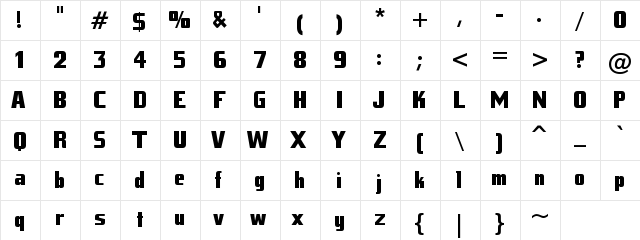
Tank Junior Regular
Design Context for Tank Junior Typeface
Tank Junior takes a measured approach to typography — its balanced proportions and neutral character make it a reliable workhorse for both digital and print work.